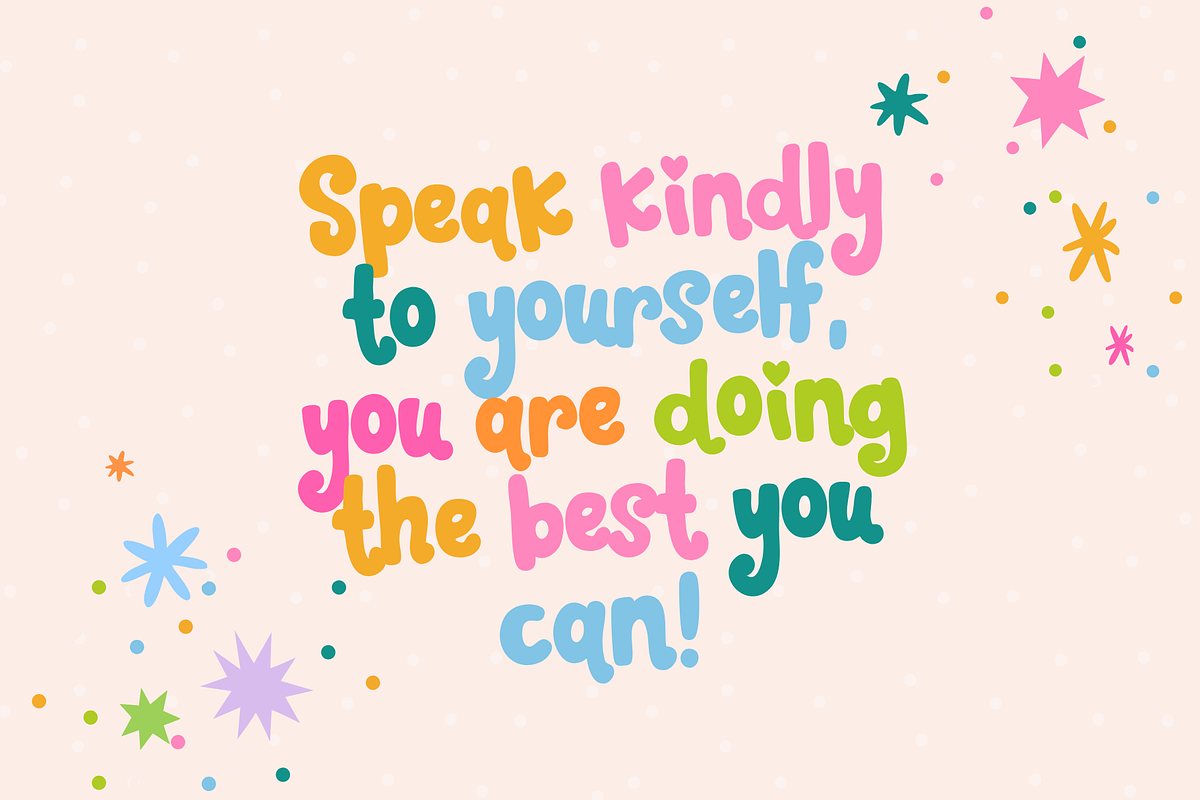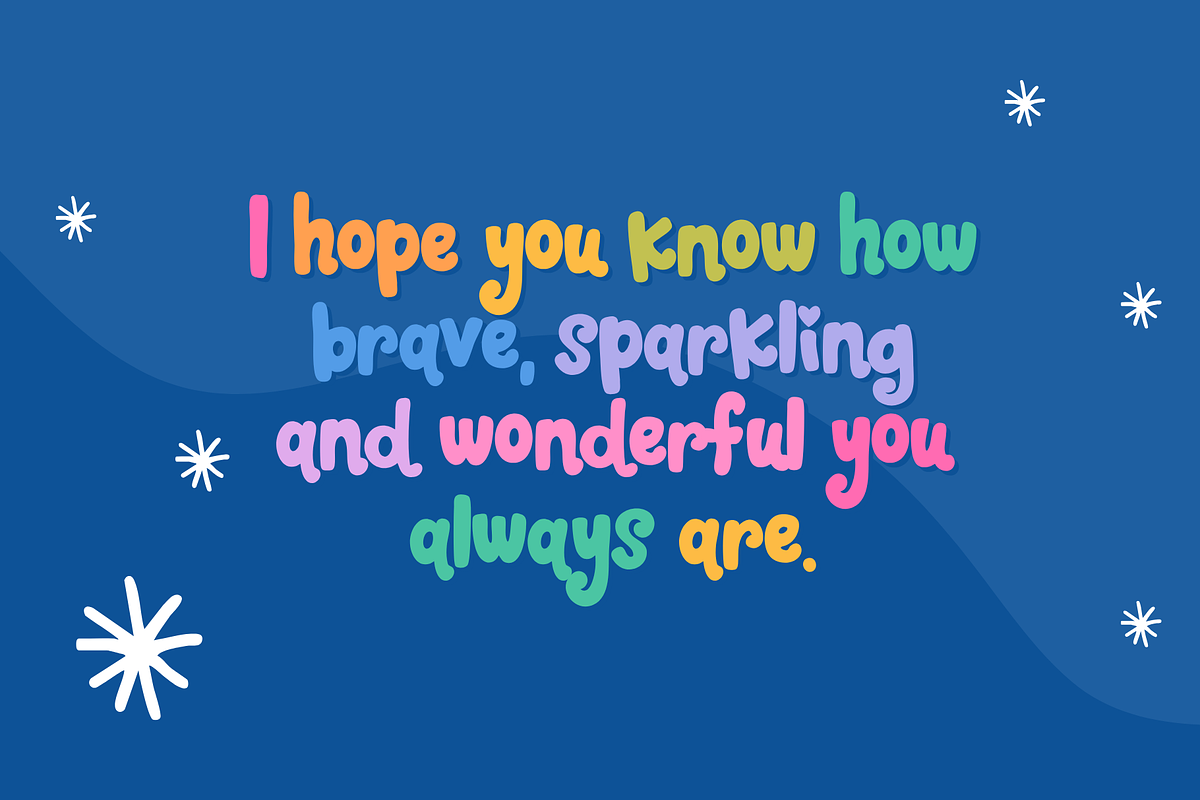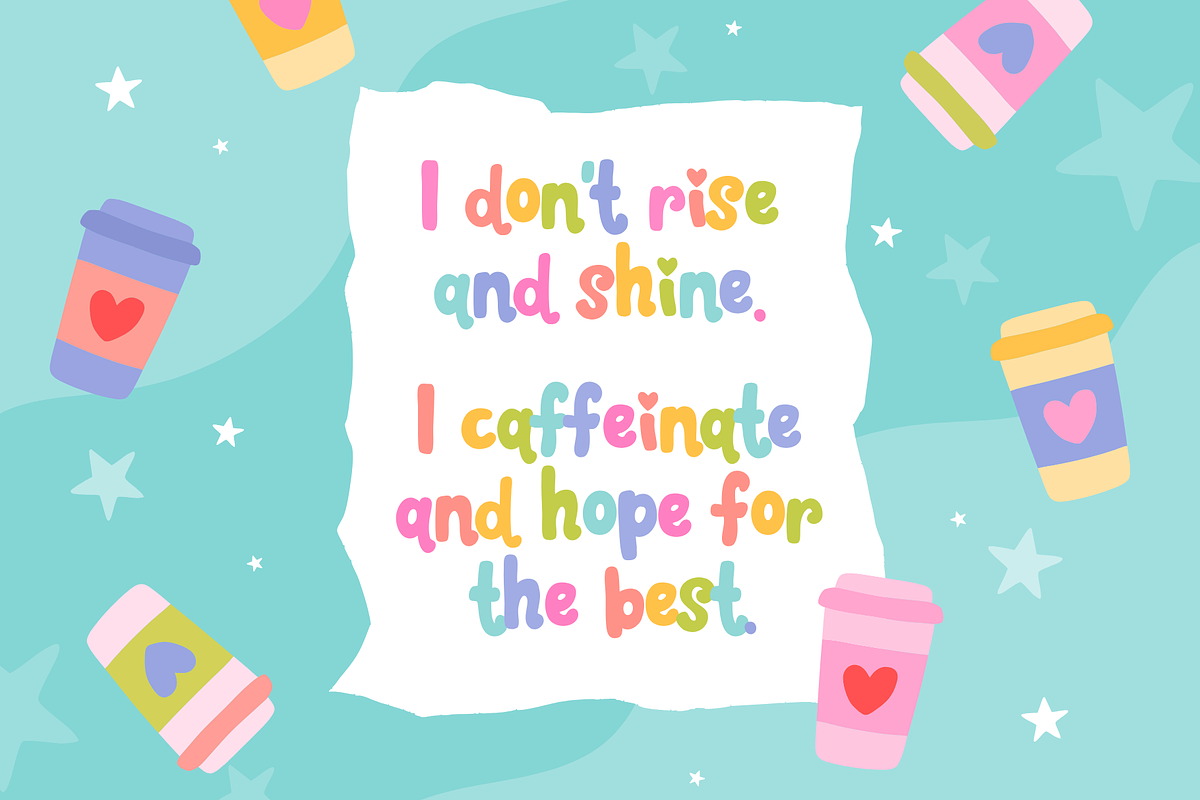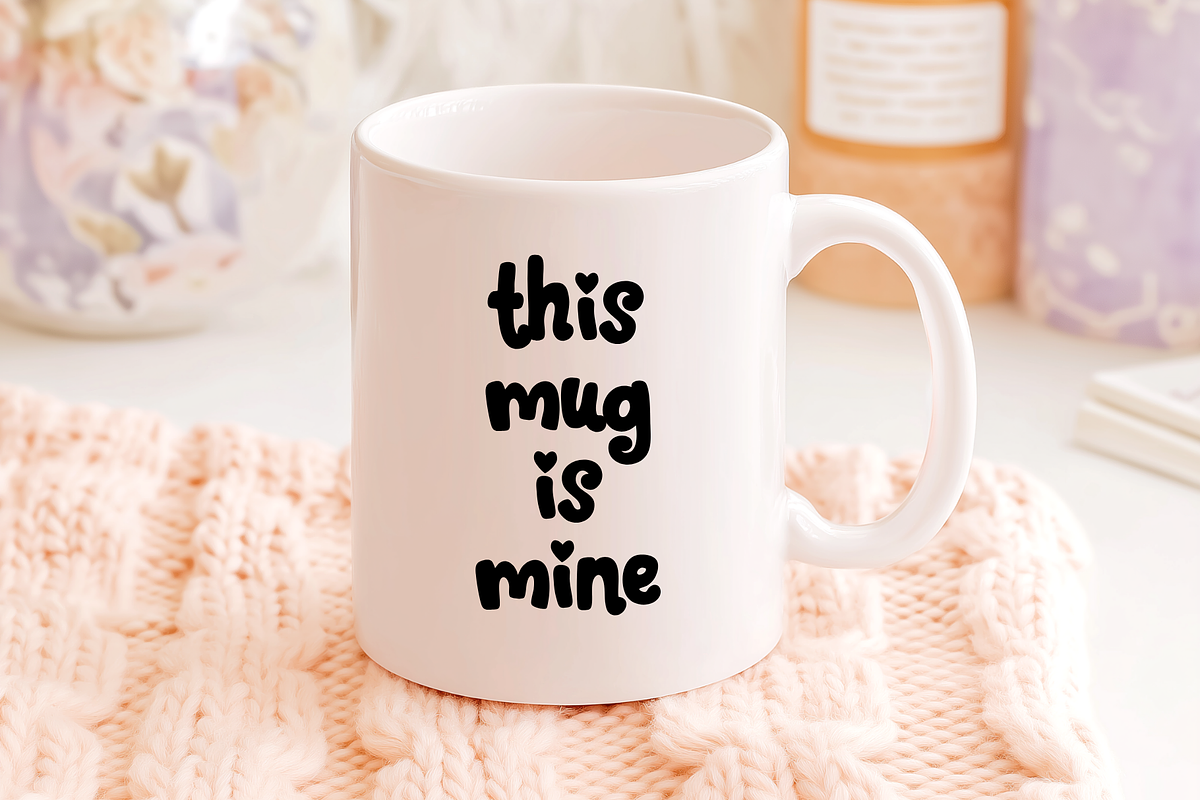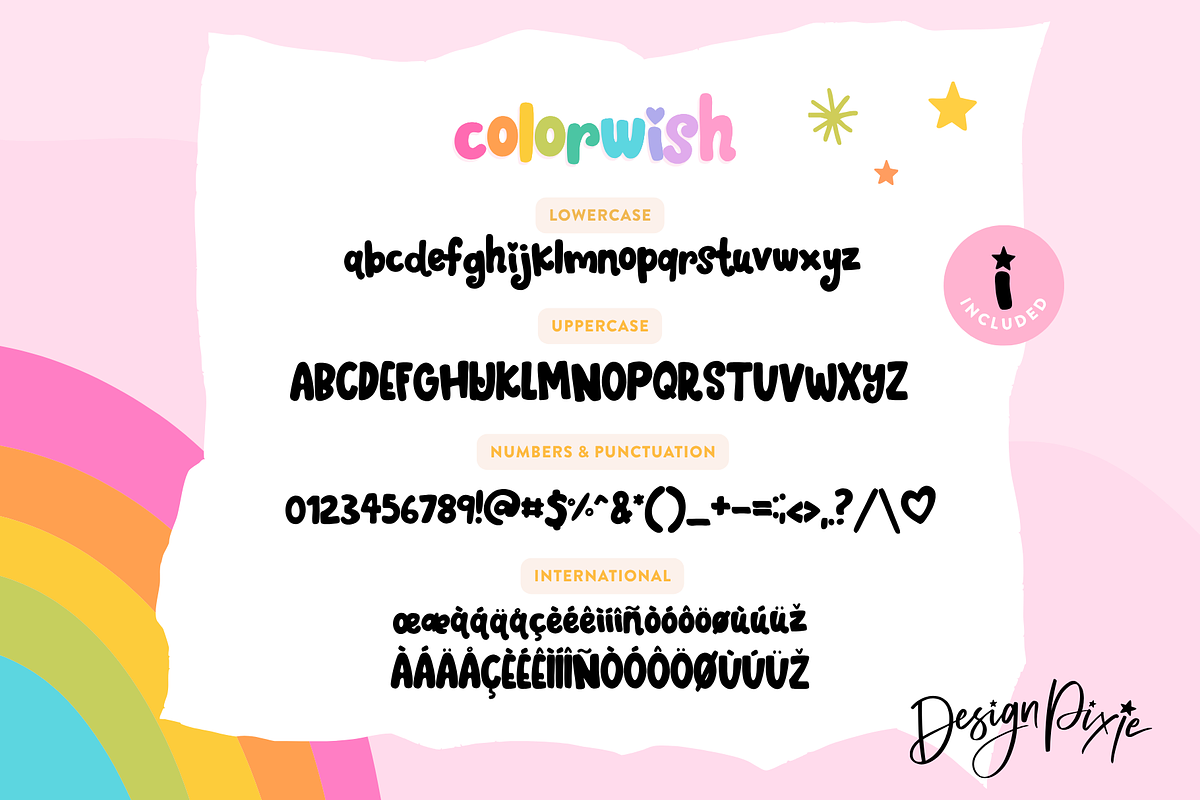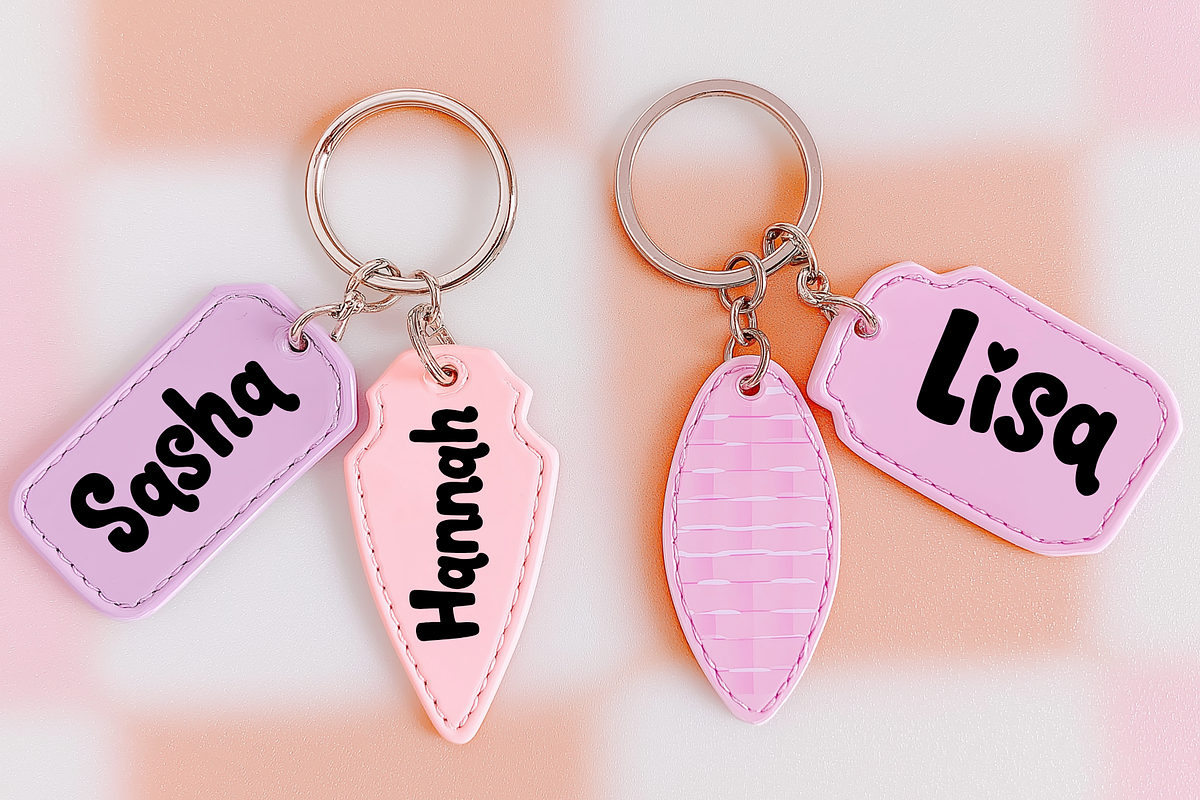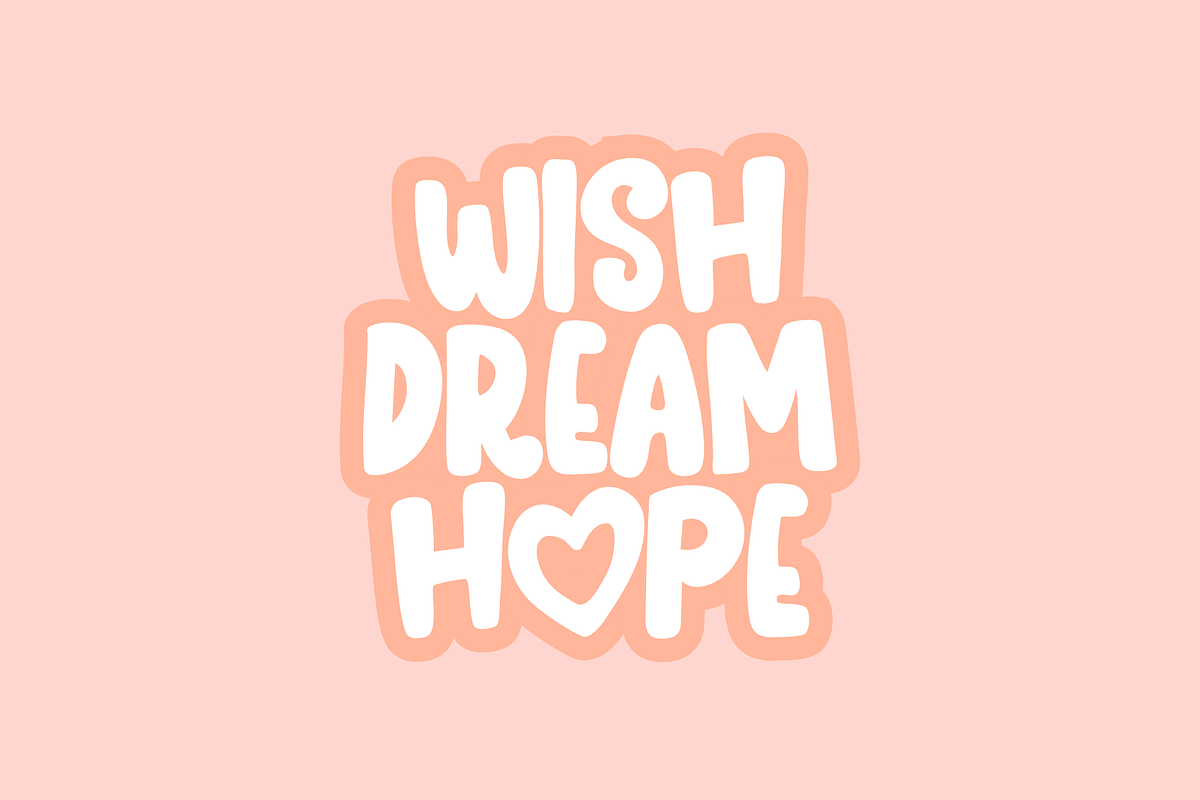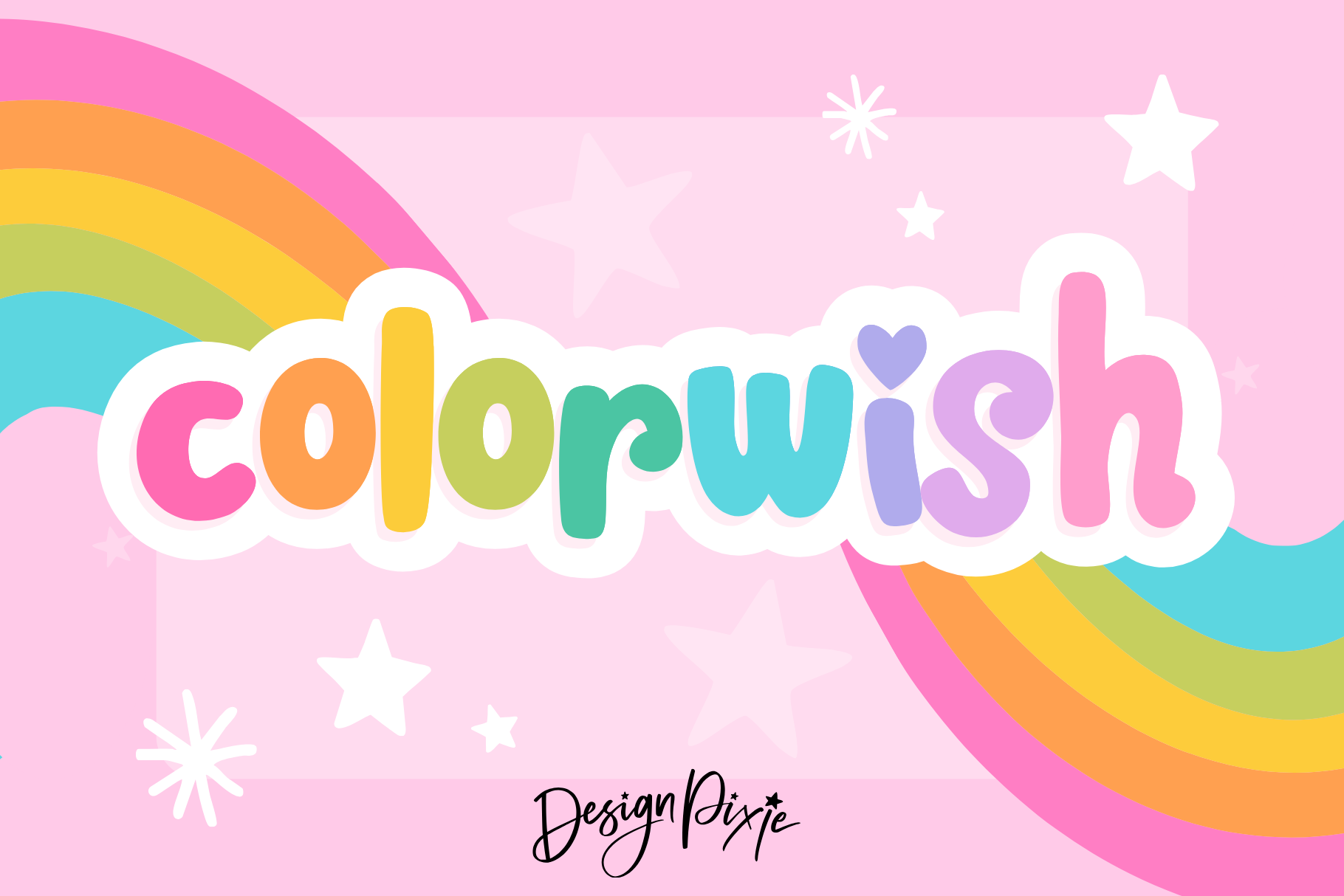
Colorwish Font
Meet Colorwish font, the bold and adorable typeface that adds instant charm to anything you create. With soft rounded edges, chunky letterforms, and the sweetest little heart dotting the i, this font is made for feel-good designs that make people smile.
Perfect for lettering quotes, sticker making, product designs, small business branding, labels, cards, shirts, packaging, Instagram posts, and anything that needs a cute pop of personality. Colorwish is easy to read, fun to use, and brings your ideas to life with a warm, friendly vibe.